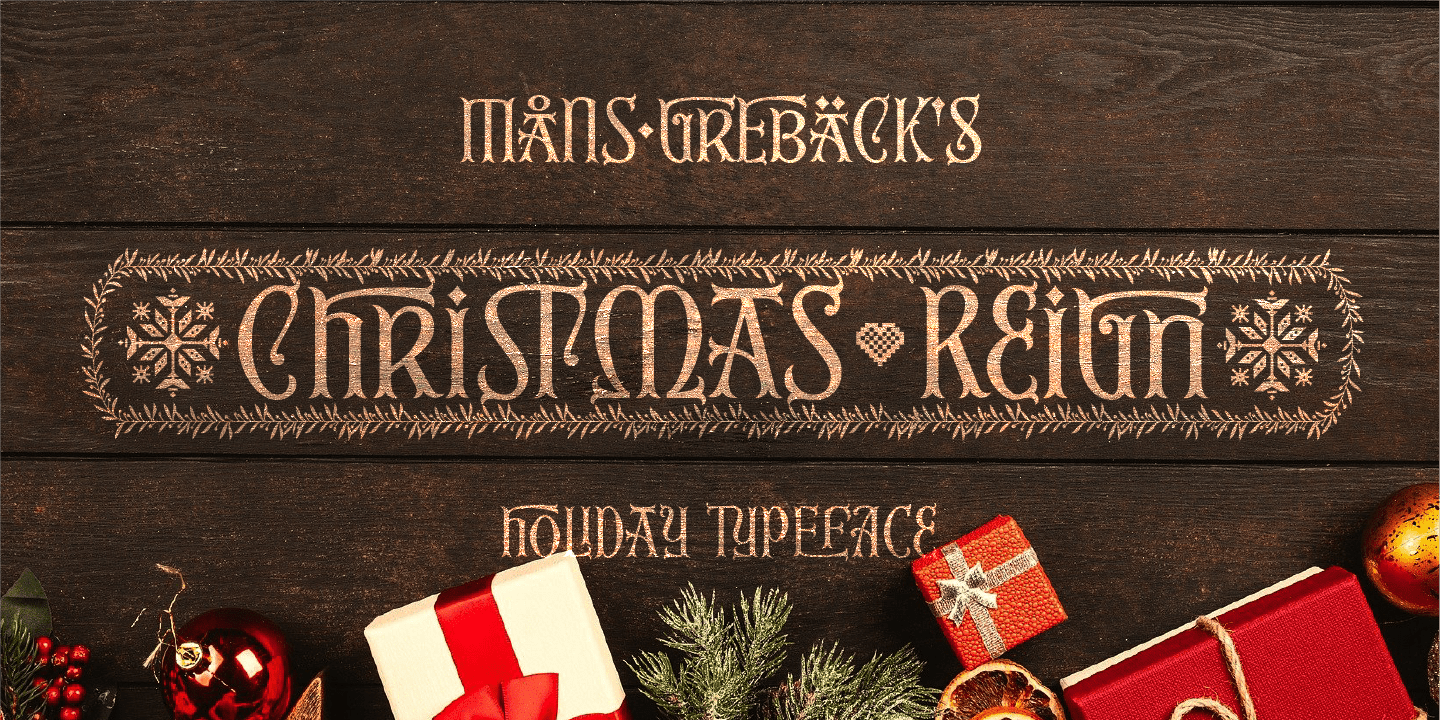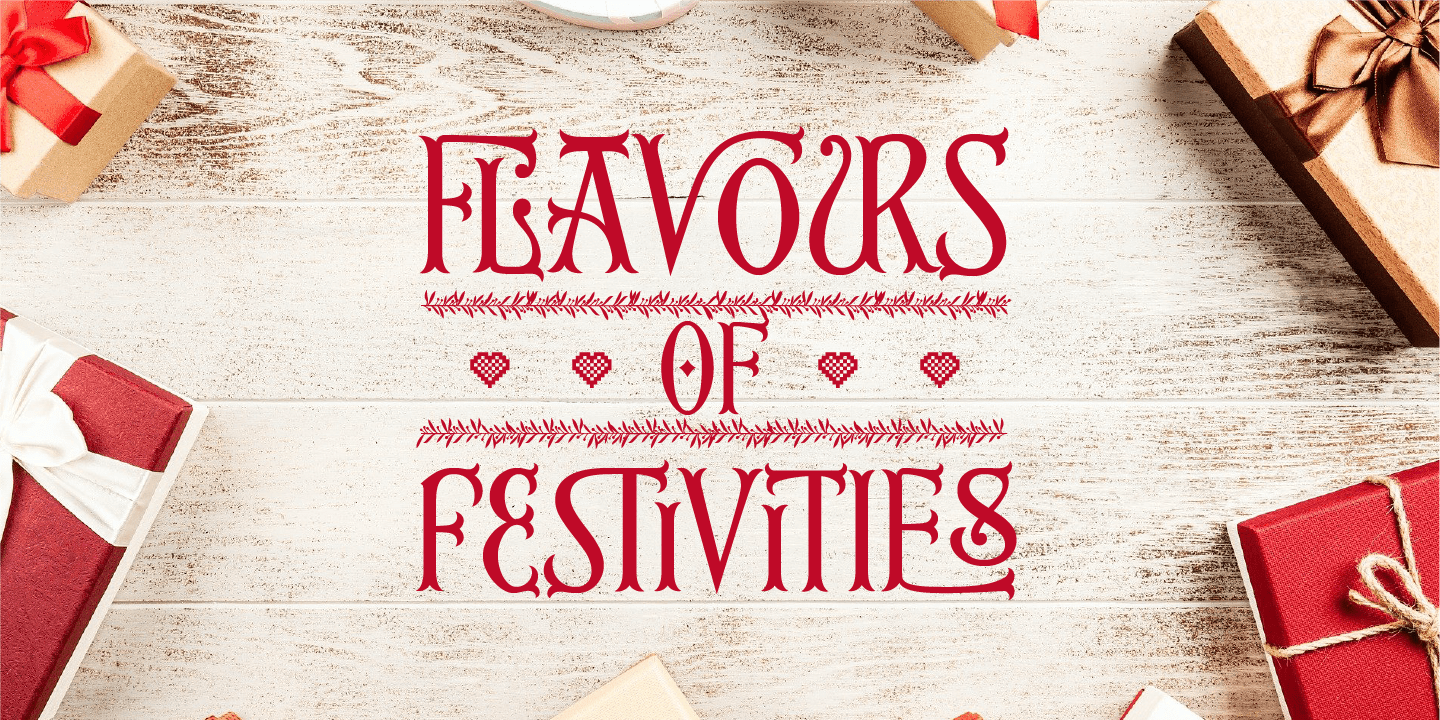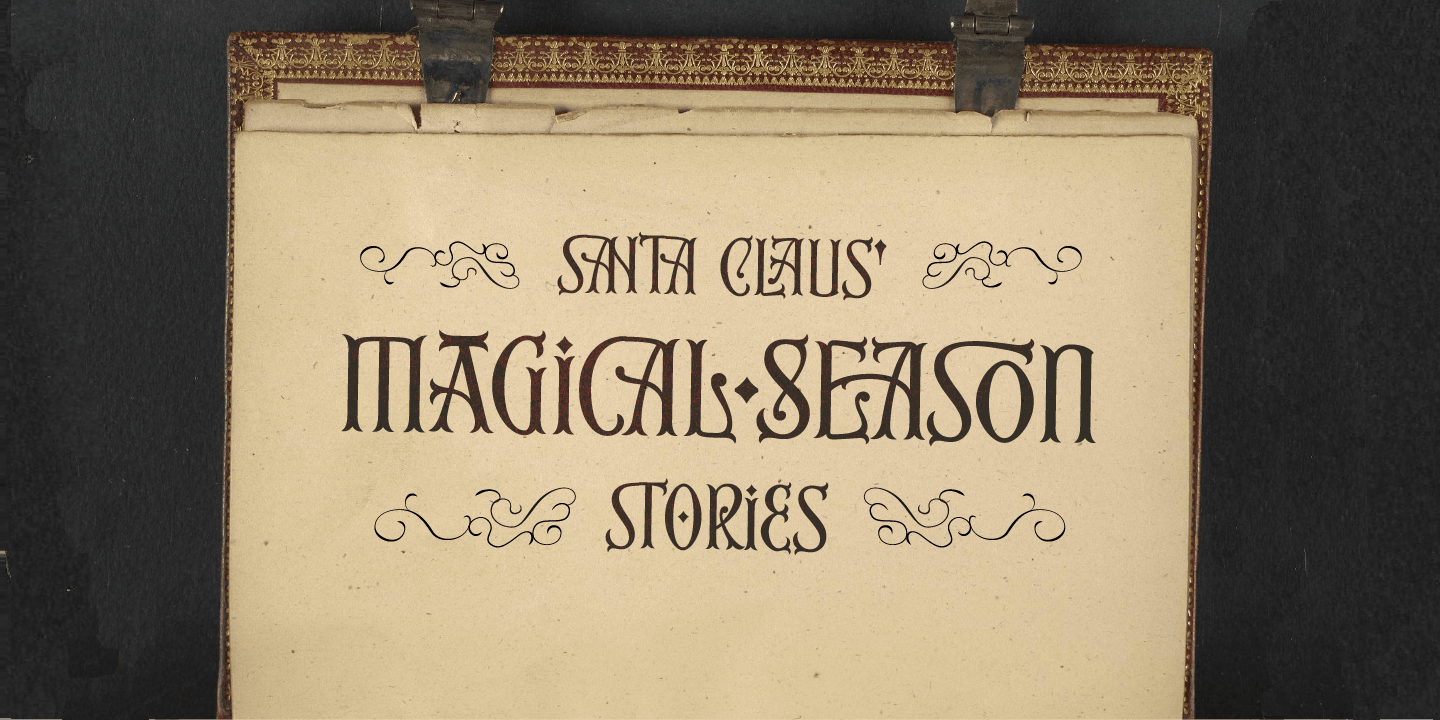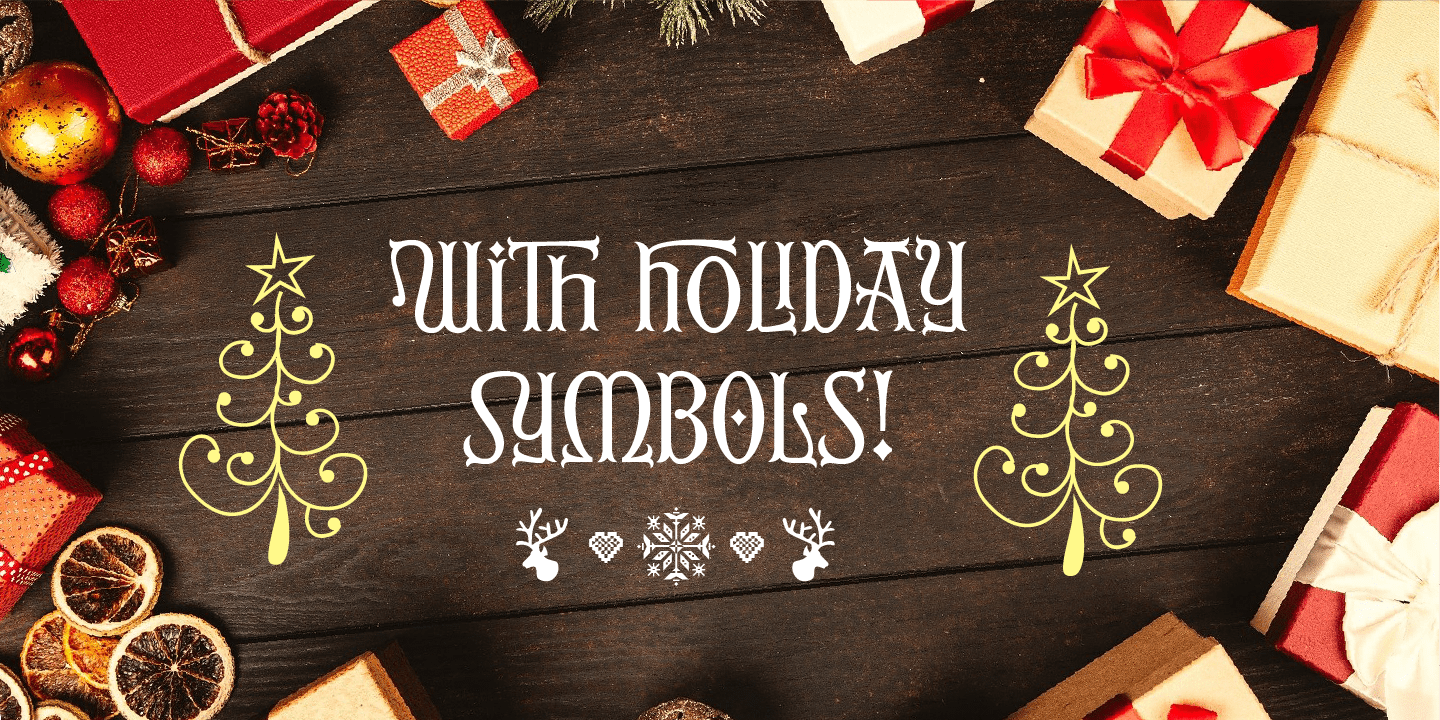
Christmas Reign
Christmas Reign is a very decorative festive typeface.
Try it and see how each letter pair behaves differently, magically creating new ways to connect as the text goes on. Use it for a stand-alone logotype, or for a longer text which requires that extra touch of magic and mystery.
Use ( ) [ ] to make a decorative border around any word. Example: (Santa_Claus)
Contains Christmas symbols, hundreds of alternates, OpenType-functions.
It works for all European languages, including Cyrillic and Greek. It also contains numbers and all characters you will ever need.